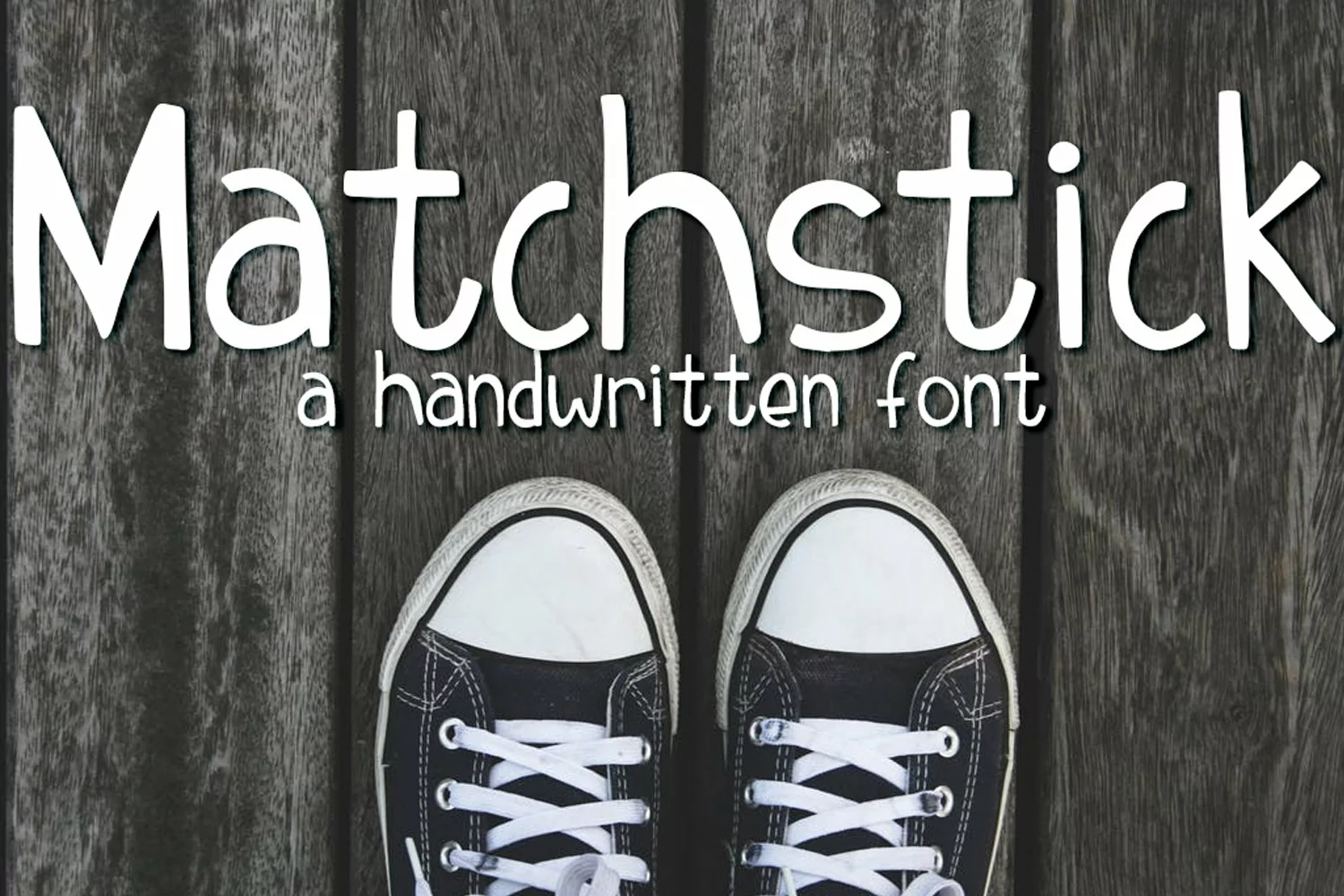
It's more than obvious to see the fun and passion for lettering in the Matchstick font. A carefree, love of life style that is clean, fresh and very appealing. This handwritten font is a one of kind. You're sure to love it! It contains all of the basics as well as glyphs for Western Europe.